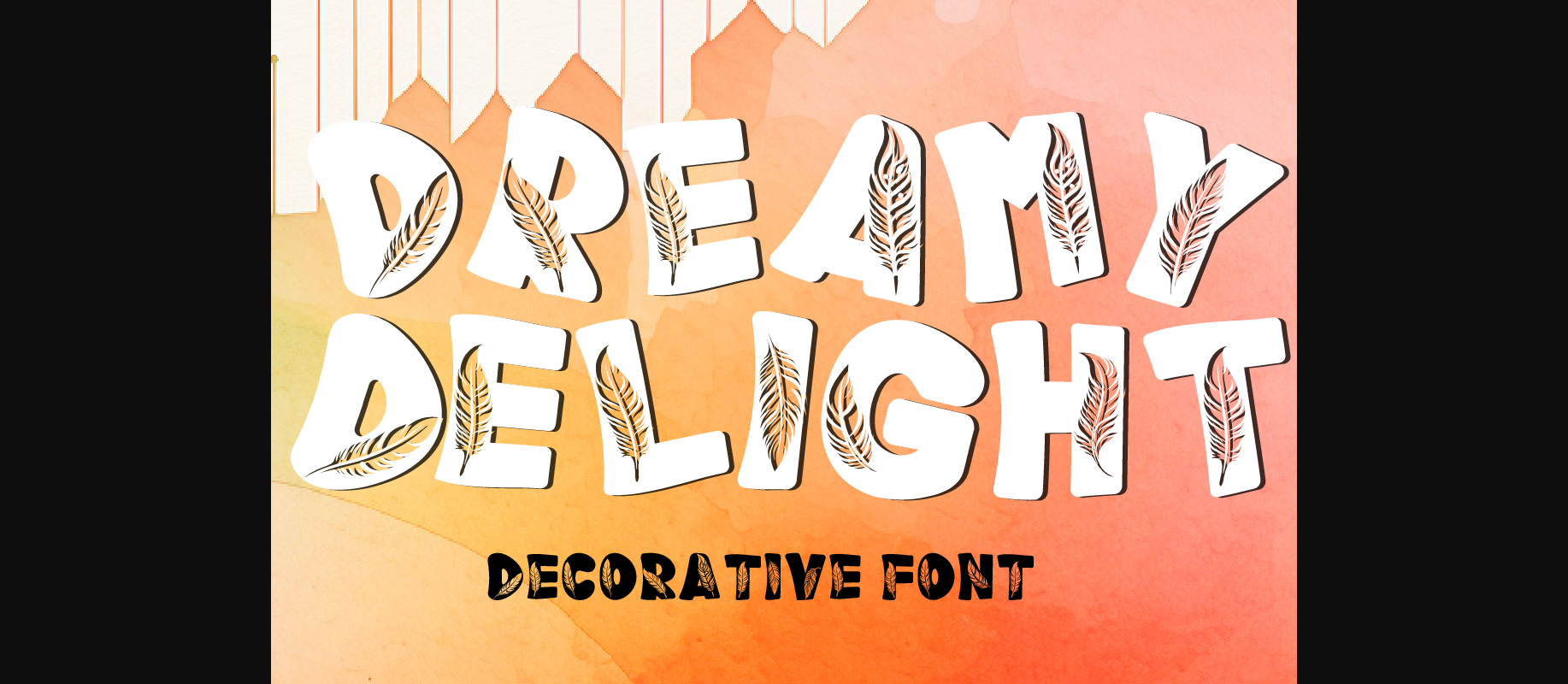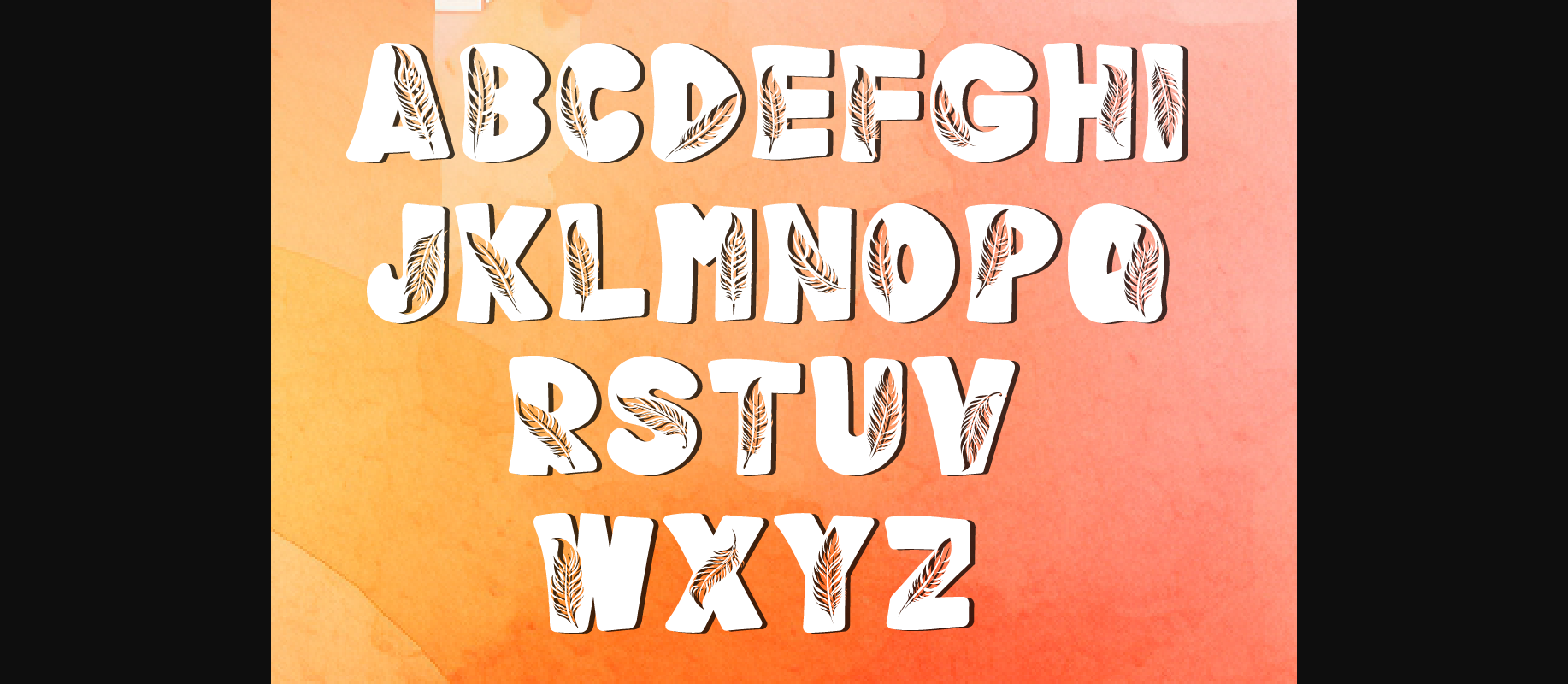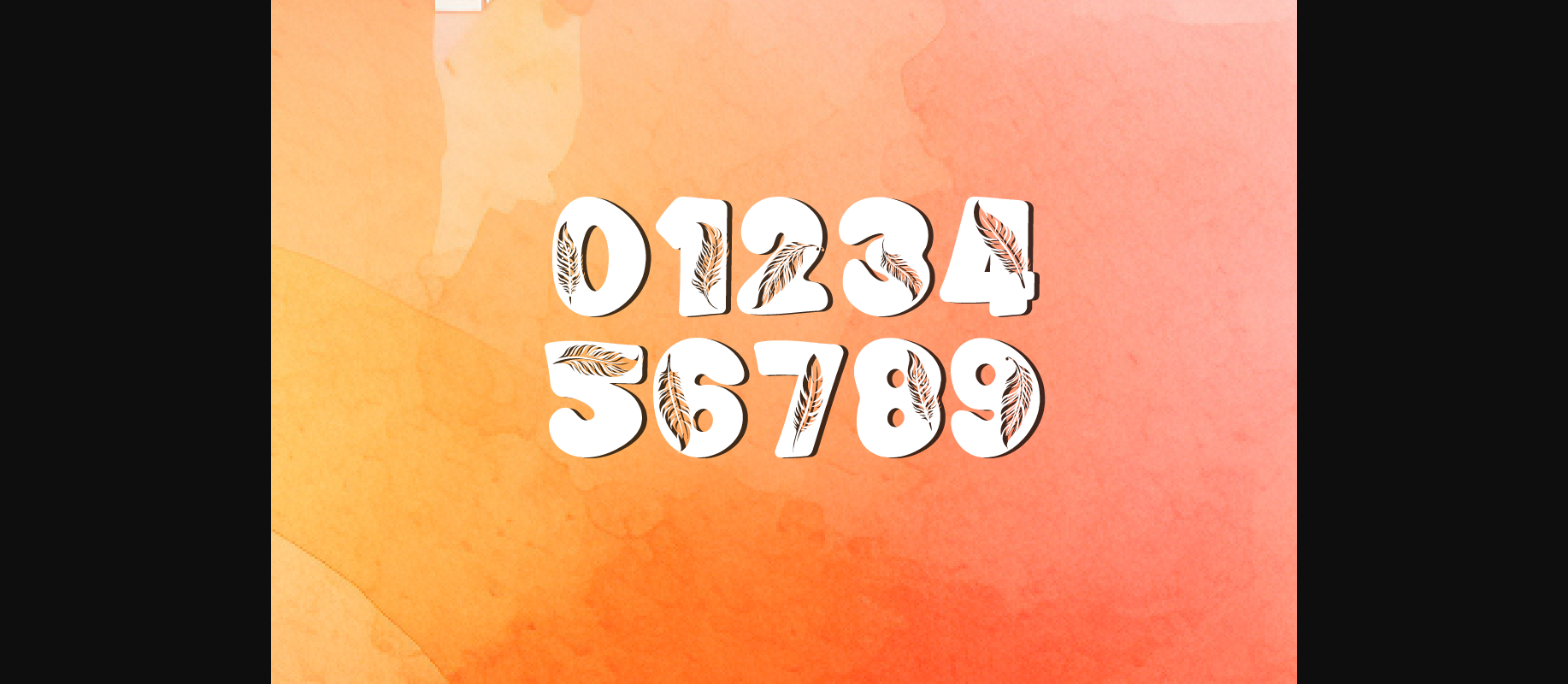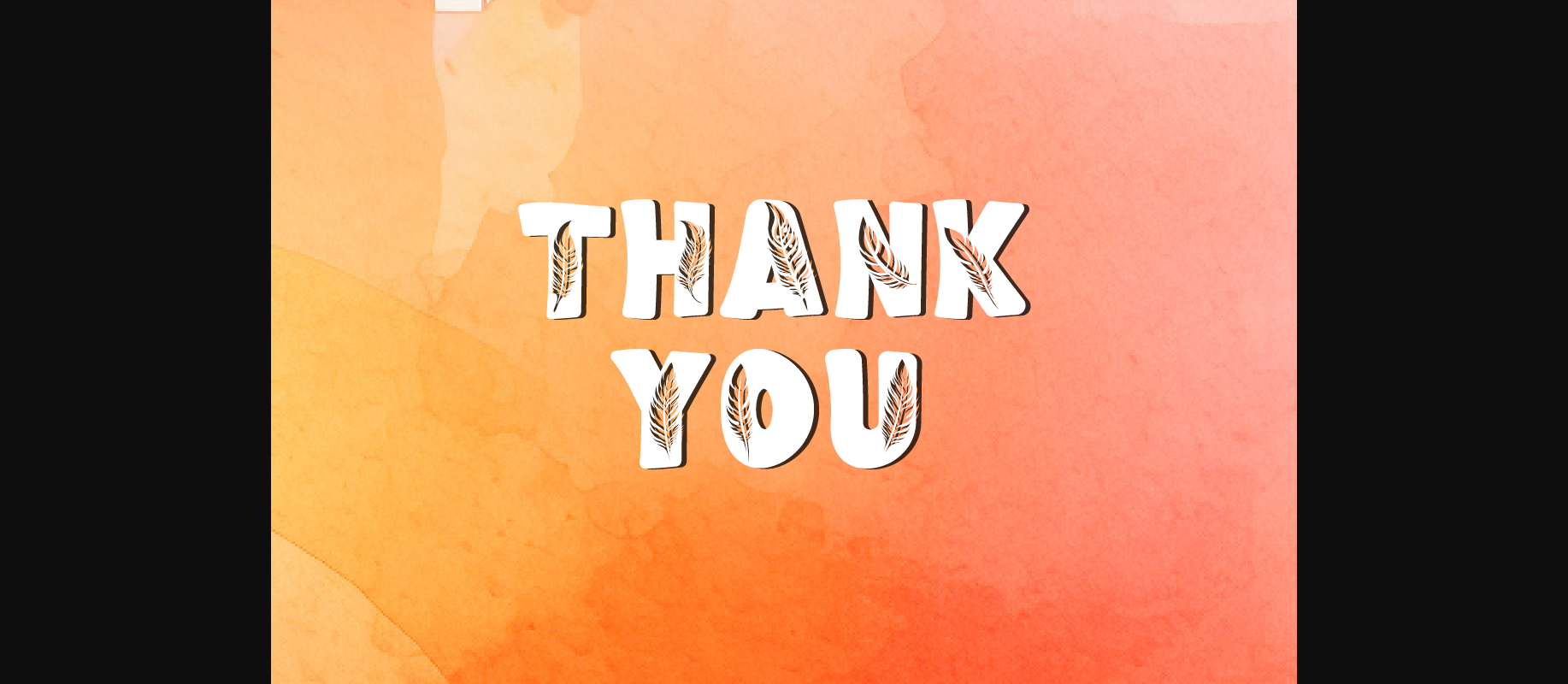
Dreamy Delight Font
About Dreamy Delight Font
Introducing “Dreamy Delight” decorative fonts, where each letter is adorned with a delicate feather motif, adding an ethereal touch to your designs. With a set of 26 capital letters and 10 numbers 0-9, these fonts offer versatility for various applications, spanning from digital artwork to print media.
Elevate your projects with the dreamy and whimsical charm of these fonts, suitable for every field of art. Included in your purchase are OTF/TTF files for seamless integration into your creative workflow. Capture attention and infuse your designs with a sense of enchantment using “Dreamy Delight” decorative fonts.